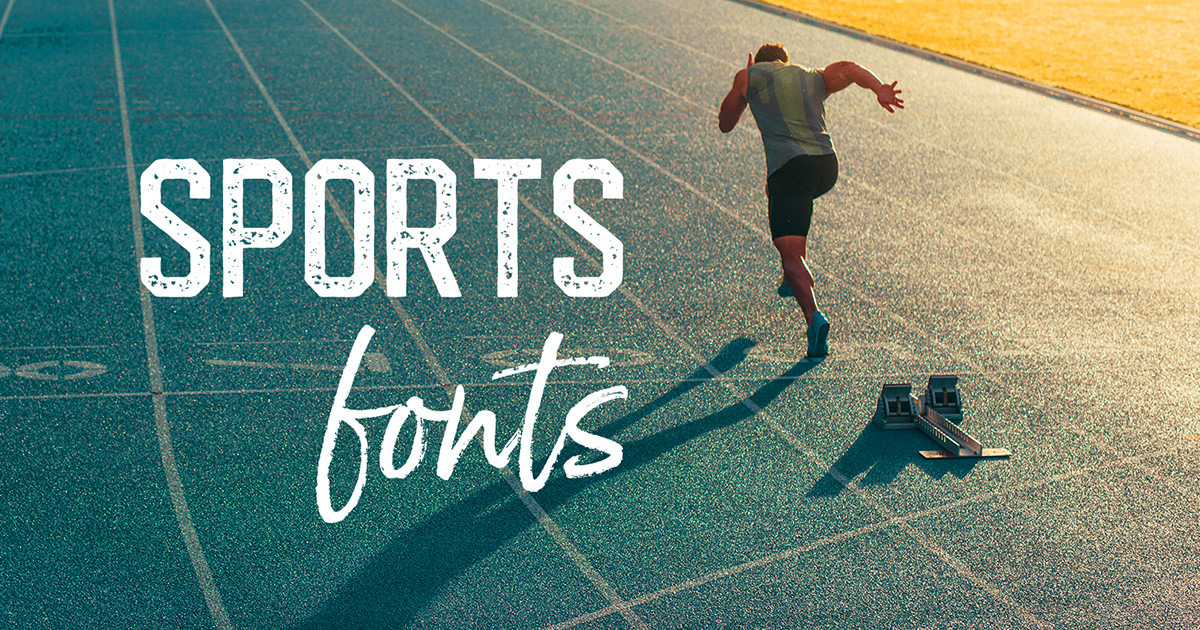
Best Sports Fonts To Make Your Project Stand Out In 2023
Sports are an integral part of our life. We love watching sports, playing sports and discussing sports. We even use sports as a metaphor in our daily conversations. Sports is one of the most popular topics to be discussed and it’s only natural that sports fonts have become a popular choice for graphic designers.
Sports fonts are fonts that have been designed with a particular sport in mind. Most commonly, sports fonts are based on the sport’s logo, but they can also be inspired by the sport’s culture, its history or its players. Sports fonts are often used for sports-related projects, such as logos, posters, and other promotional materials. In 2023, the best sports fonts will be bold, modern and unique.
The Best Sports Fonts of 2023
As we move into 2023, there are a few sports fonts that will stand out as the best. Each of these fonts is modern and unique, and they are sure to make your project stand out. Here are the top 5 sports fonts of 2023:
1. Athletic Club
Athletic Club is a modern and eye-catching font that’s perfect for sports-related projects. This font is inspired by the classic athletic club logo and has a strong, modern look. Athletic Club is perfect for logos, posters and other promotional materials. It’s bold, unique and sure to make your project stand out.
2. Sports Team
Sports Team is a modern font that’s inspired by the logos of professional sports teams. This font is perfect for logos, posters and other sports-related projects. It’s bold, modern and sure to make your project stand out. It’s perfect for any project that needs to have a strong and unique look.
3. Football League
Football League is a bold and modern font that’s perfect for any football-related project. This font is inspired by the logos of professional football teams and has a strong, modern look. Football League is perfect for logos, posters and other promotional materials. It’s bold, unique and sure to make your project stand out.
4. Racing Club
Racing Club is a modern and eye-catching font that’s perfect for racing-related projects. This font is inspired by the classic racing club logo and has a strong, modern look. Racing Club is perfect for logos, posters and other promotional materials. It’s bold, unique and sure to make your project stand out.
5. Basketball League
Basketball League is a bold and modern font that’s perfect for any basketball-related project. This font is inspired by the logos of professional basketball teams and has a strong, modern look. Basketball League is perfect for logos, posters and other promotional materials. It’s bold, unique and sure to make your project stand out.
These are the top 5 sports fonts of 2023. Each of these fonts is bold, modern and sure to make your project stand out. Whether you’re creating a logo, a poster or any other sports-related project, these fonts are sure to give your project the unique and professional look you’re looking for.